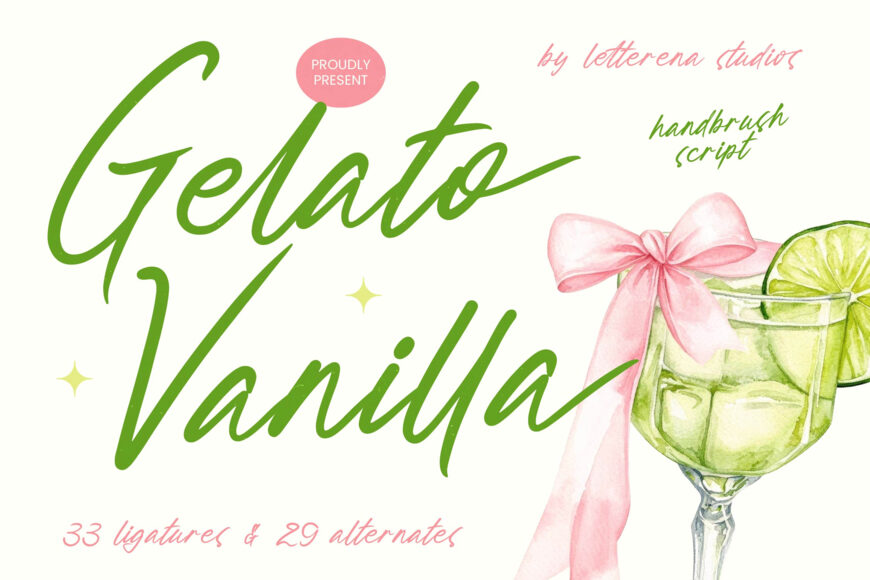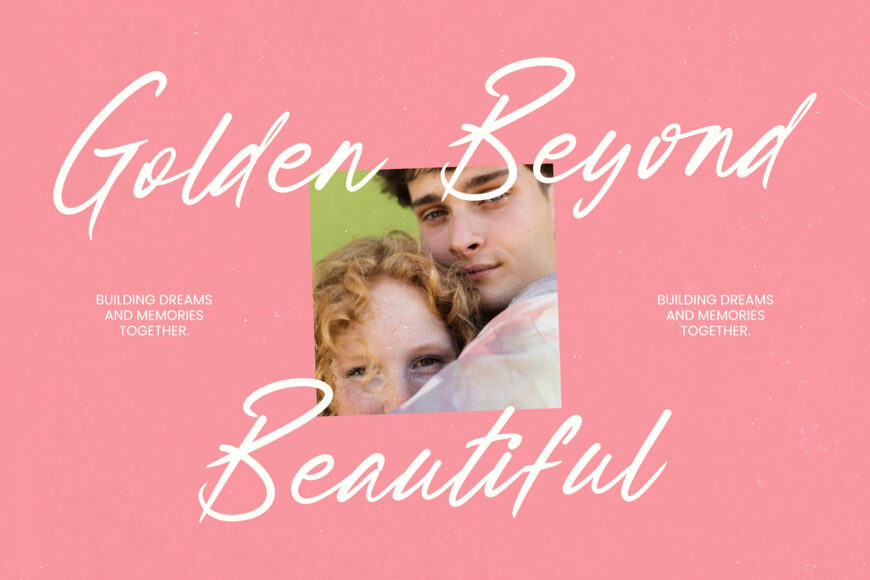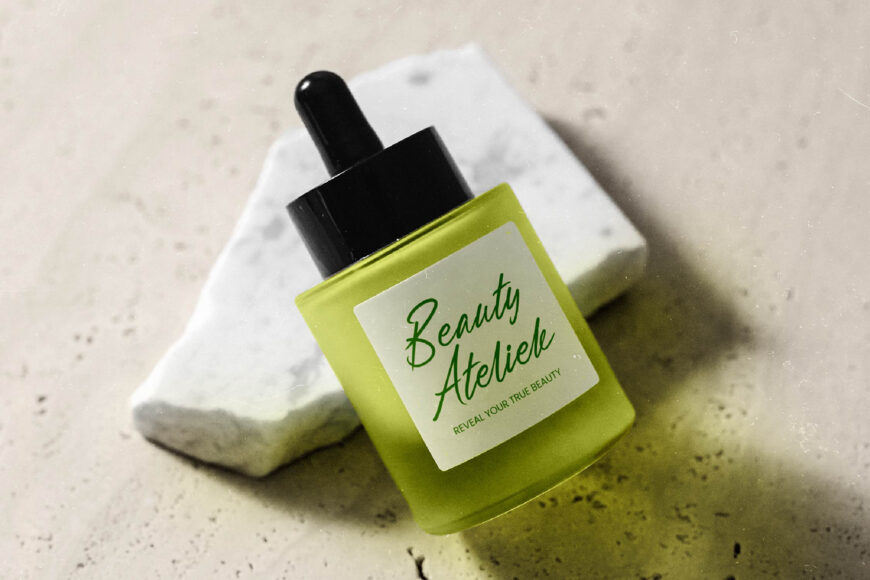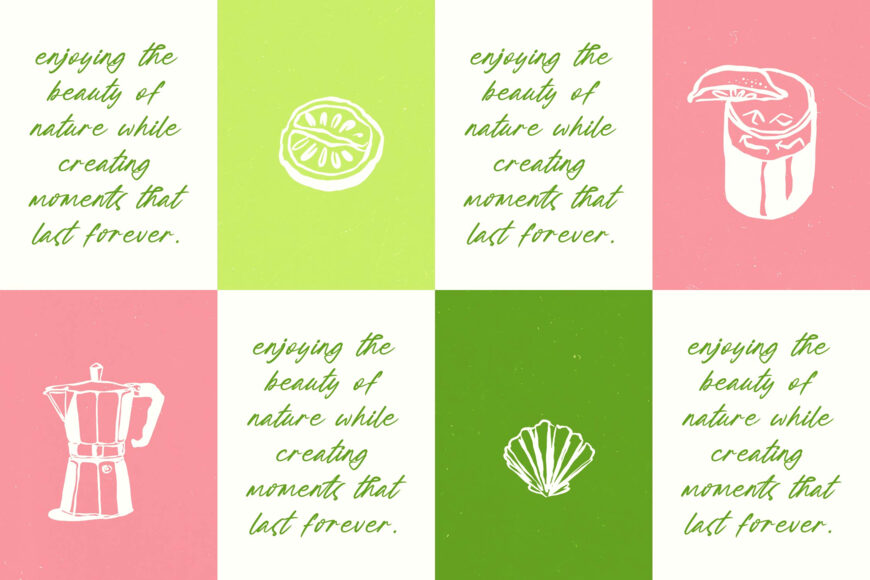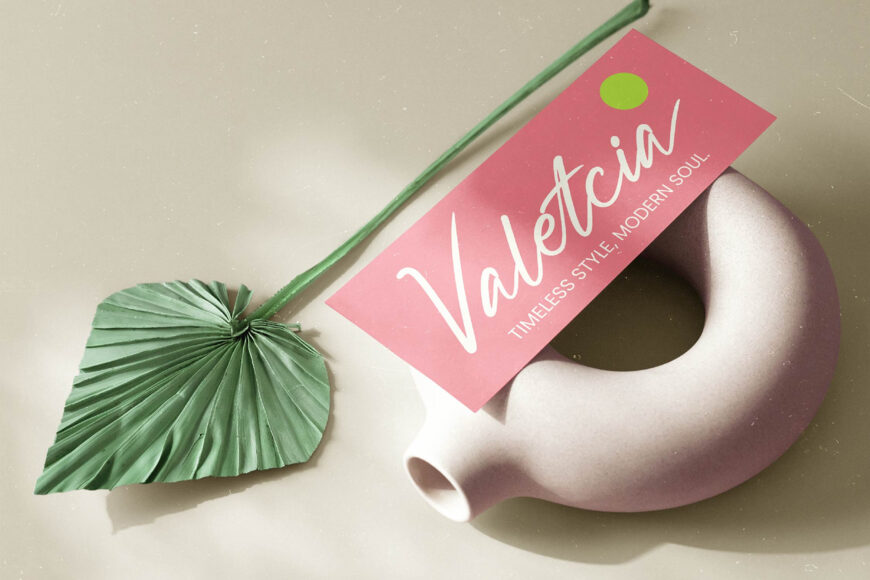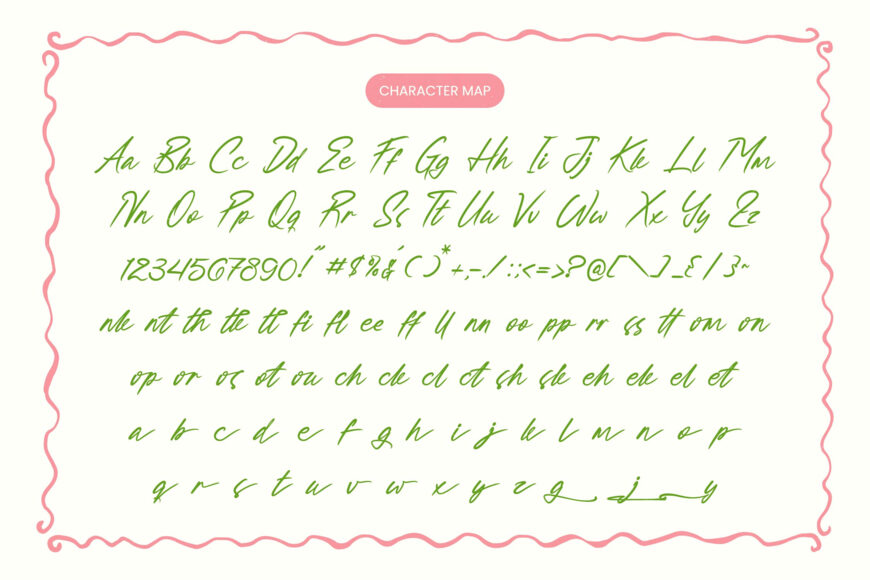
Bring organic elegance and handcrafted character to your designs with Gelato Vanilla, a handbrush script inspired by authentic brushwork. Its fluid strokes and expressive personality create a polished, artisanal feel that helps projects stand out.
With 33 ligatures and 29 alternates, you can customize each word while maintaining smooth connections and excellent readability. Extensive multilingual support makes Gelato Vanilla a reliable choice for international branding, marketing, packaging, and creative projects, ensuring your message remains consistent, distinctive, and accessible across global audiences.